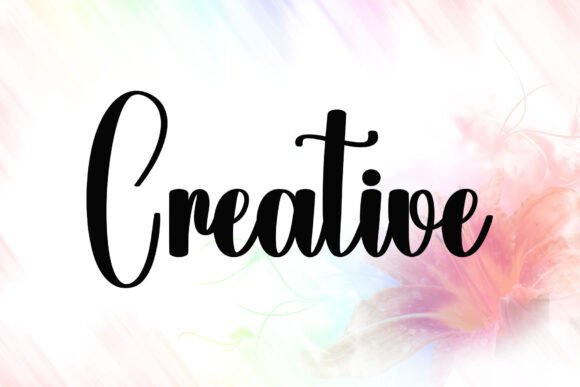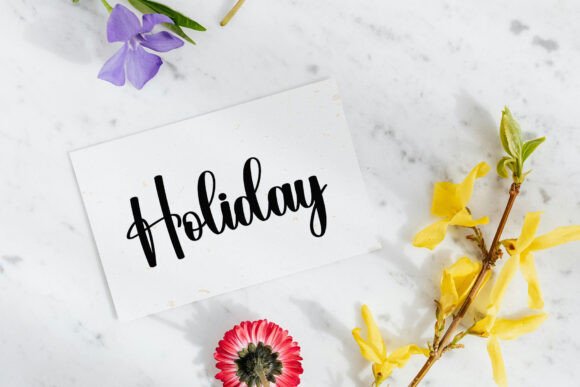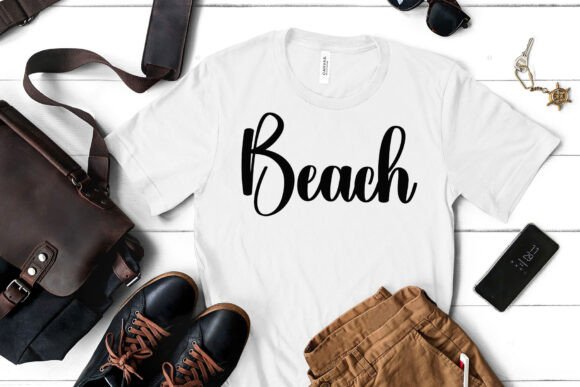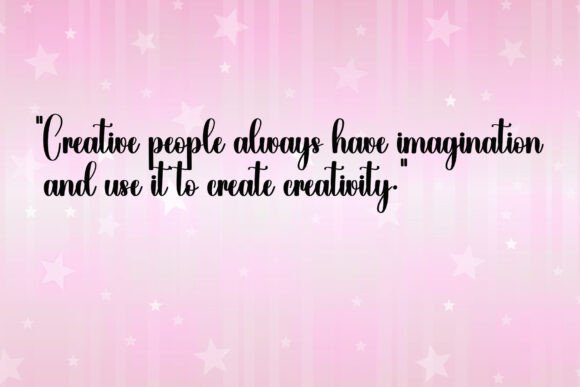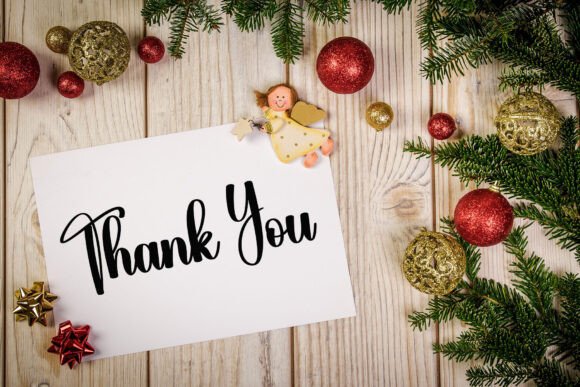
Discover the Elegance of Demure Font: Elevate Your Designs with Timeless Style
In the world of typography, fonts play a crucial role in conveying the tone and aesthetic of a design. For those seeking a touch of elegance and sophistication, the Demure Font stands out as an exceptional choice. Described as a neat and beautiful handwritten font with an elegant touch, Demure is perfect for a wide range of projects, from creative crafts to professional designs. In this article, we’ll explore the unique characteristics of the Demure Font and how it can be used to create spectacular designs that capture the essence of timeless style.
The Distinctive Charm of Demure Font
Demure Font is celebrated for its incredibly distinct and timeless style. Its elegant touch sets it apart from more casual or generic fonts, making it an ideal selection for designers and crafters who aim to infuse their work with a sense of refinement. The font’s neat and beautiful handwritten appearance ensures that it can be applied across various mediums, from digital platforms to print materials, without losing its charm.
Key Features of Demure Font
- Elegant Touch: The font’s elegant nature makes it suitable for projects that require a sophisticated look, such as luxury branding, high-end product packaging, and elegant stationery.
- Timeless Style: Unlike trendy fonts that may quickly become outdated, Demure’s timeless style ensures that your designs remain relevant and stylish for years to come.
- Versatility: Demure Font can be used in a variety of contexts, from digital interfaces and websites to print materials like brochures, posters, and business cards.
- Readability: Despite its elegant and somewhat ornate appearance, Demure maintains a high level of readability, making it practical for both headings and body text.
Using Demure Font in Your Designs
Whether you’re a professional designer or a crafty hobbyist, incorporating Demure Font into your projects can elevate your work to new heights. Here are some ideas on how to make the most of this beautiful font:
- Branding and Logotypes: Use Demure Font to create a memorable logo or brand identity that exudes elegance and sophistication.
- Stationery and Invitations: Add a touch of class to your business letters, invitations, or thank-you cards with Demure’s elegant script.
- Web Design: Enhance the user experience of your website with Demure Font, used for headings, titles, or even the entire content for a more luxurious feel.
- Packaging: Stand out on store shelves with product packaging that features Demure Font, perfect for high-end or boutique products.
- Social Media Graphics: Create eye-catching social media posts and stories that reflect your brand’s sophisticated side.
Tips for Working with Demure Font
To ensure that your designs featuring Demure Font turn out spectacular, consider the following tips:
- Pair with Complementary Fonts: When using Demure Font alongside other typefaces, choose fonts that complement its elegance without overpowering it.
- Adjust Letter Spacing: For optimal readability, especially in longer texts, adjust the letter spacing to ensure a comfortable and aesthetically pleasing appearance.
- Experiment with Colors: While Demure Font looks stunning in classic black and white, don’t be afraid to experiment with colors that match your brand’s palette or the mood of your design.
Demure Font offers a unique blend of elegance, timelessness, and versatility, making it an invaluable asset for designers and crafters alike. Its neat and beautiful handwritten style, coupled with an elegant touch, ensures that your projects stand out with a sophisticated charm. Whether you’re aiming to create stunning brand identities, elegant stationery, or captivating digital content, Demure Font is sure to exceed your expectations. Fall in love with its distinct style and use it to craft designs that leave a lasting impression.